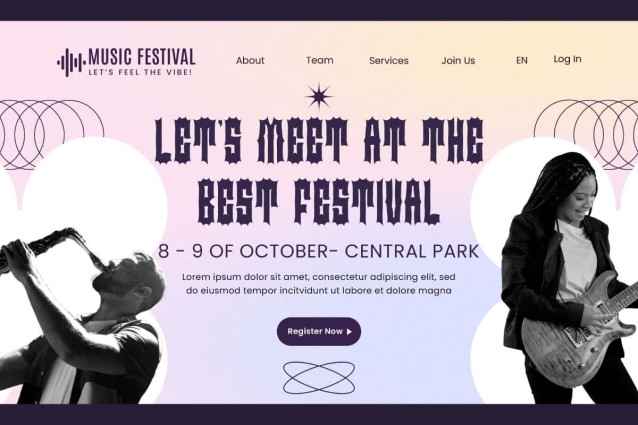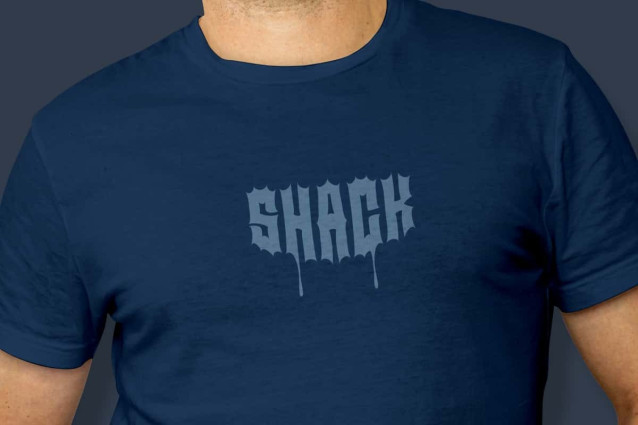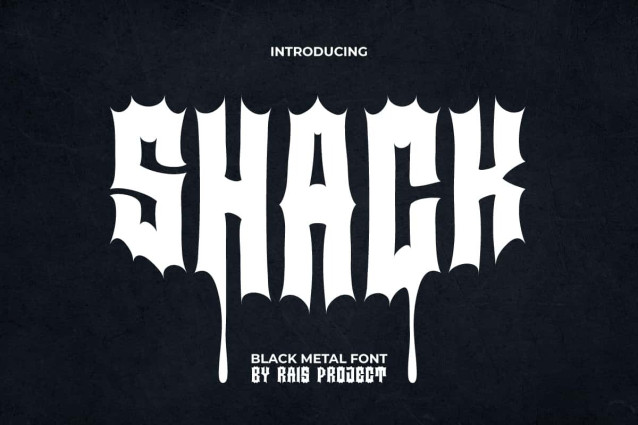
Shack Font
Shack Font is a creepy black metal font by RaisProject. This font has prominent characters and has interesting variations such as having paint drops at the bottom of the letters. Try this font now for various designs, such as custom design, poster, label, stationery, signage, invitation, advertisement, website, quotes, and more!
Shack Font comes with a full set of upper and lowercase letters, numerals, a large range of punctuation, and Alternate character to make it awesome. The font carefully crafted to create a unique look and still easy to read. This font would be perfect for industry like fashion, movie, game, event or festival, cafe, graphic designer, printing, publishing, etc.